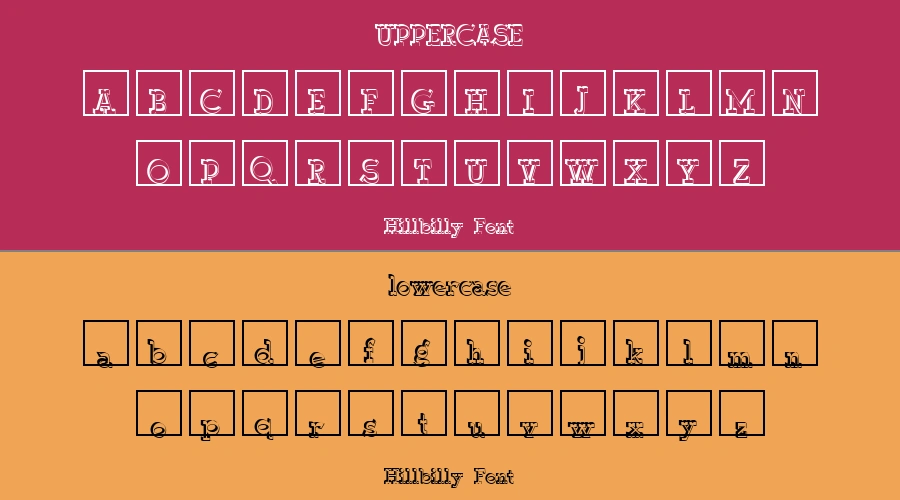
About Hillbilly Font
Hillbilly Font stands out for its distinctive combination of rounded apexes and typographic color. Ideal for government publications, it provides the adaptability and visual appeal that professional projects demand. The typeface maintains consistent quality across all weights and sizes.
Key features include refined modular forms and practical terminal forms, enhancing typographic expression. In identification tags applications, Hillbilly Font demonstrates exceptional headline impact. The loop structure and artistic merit contribute to its distinctive character and professional appeal.